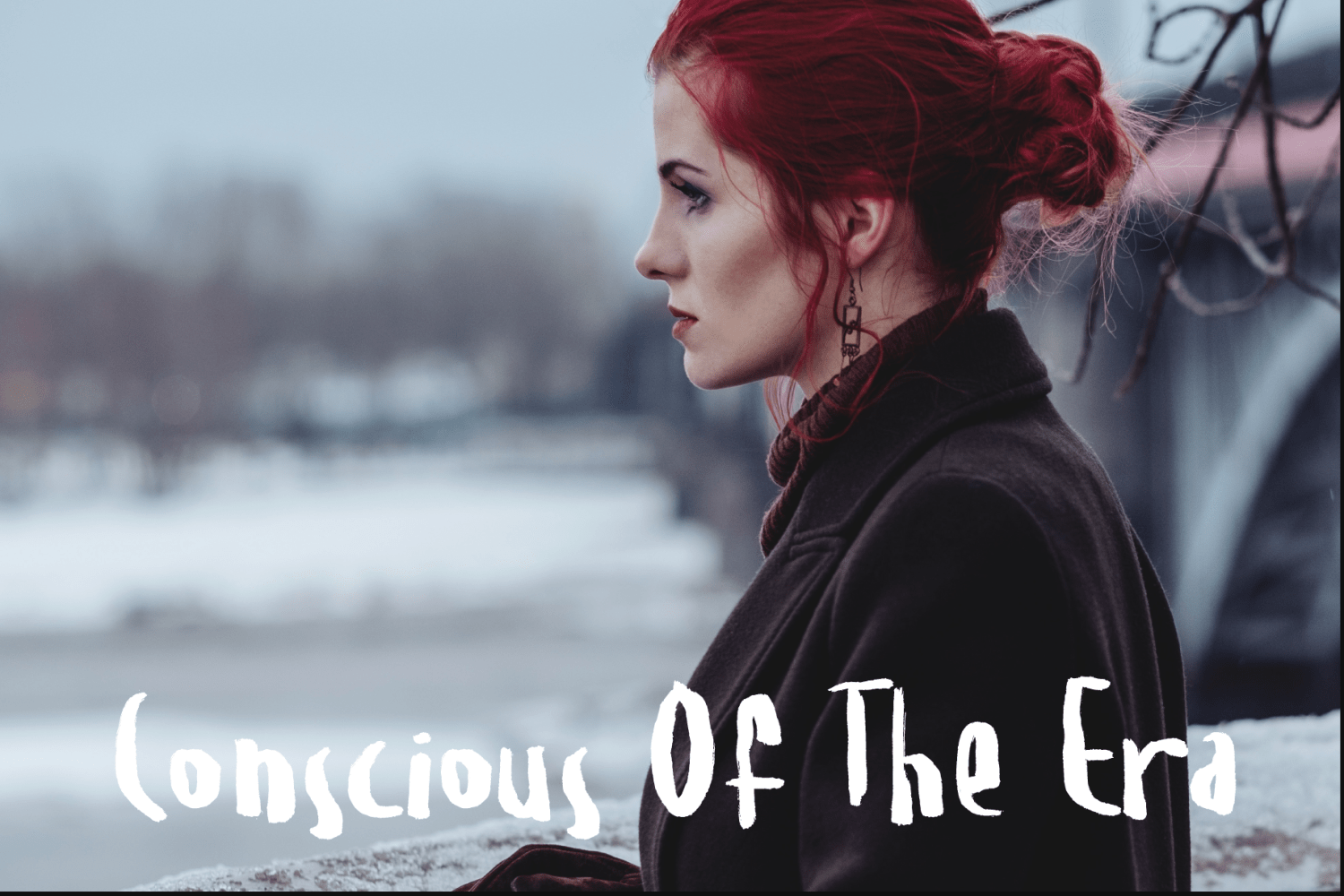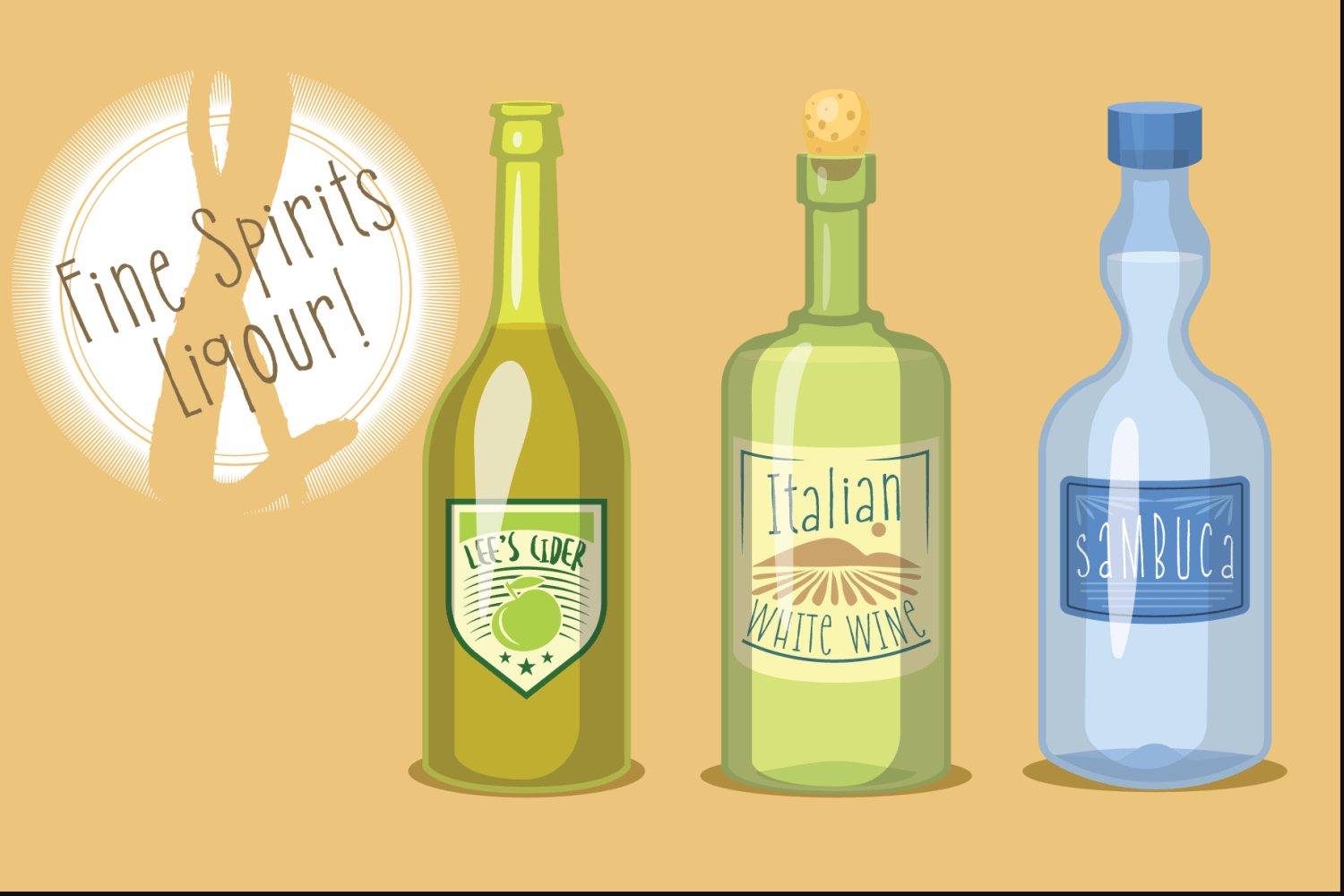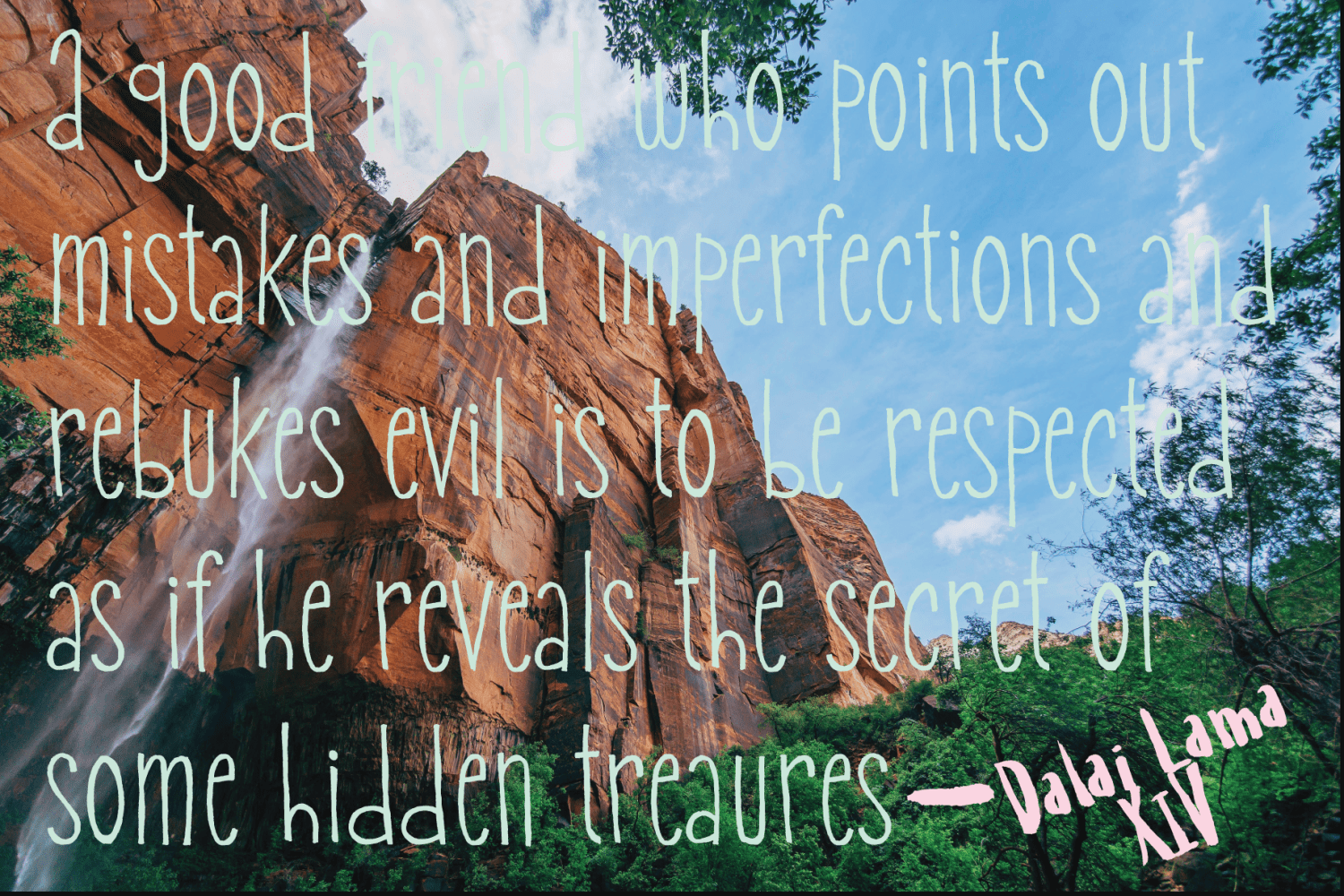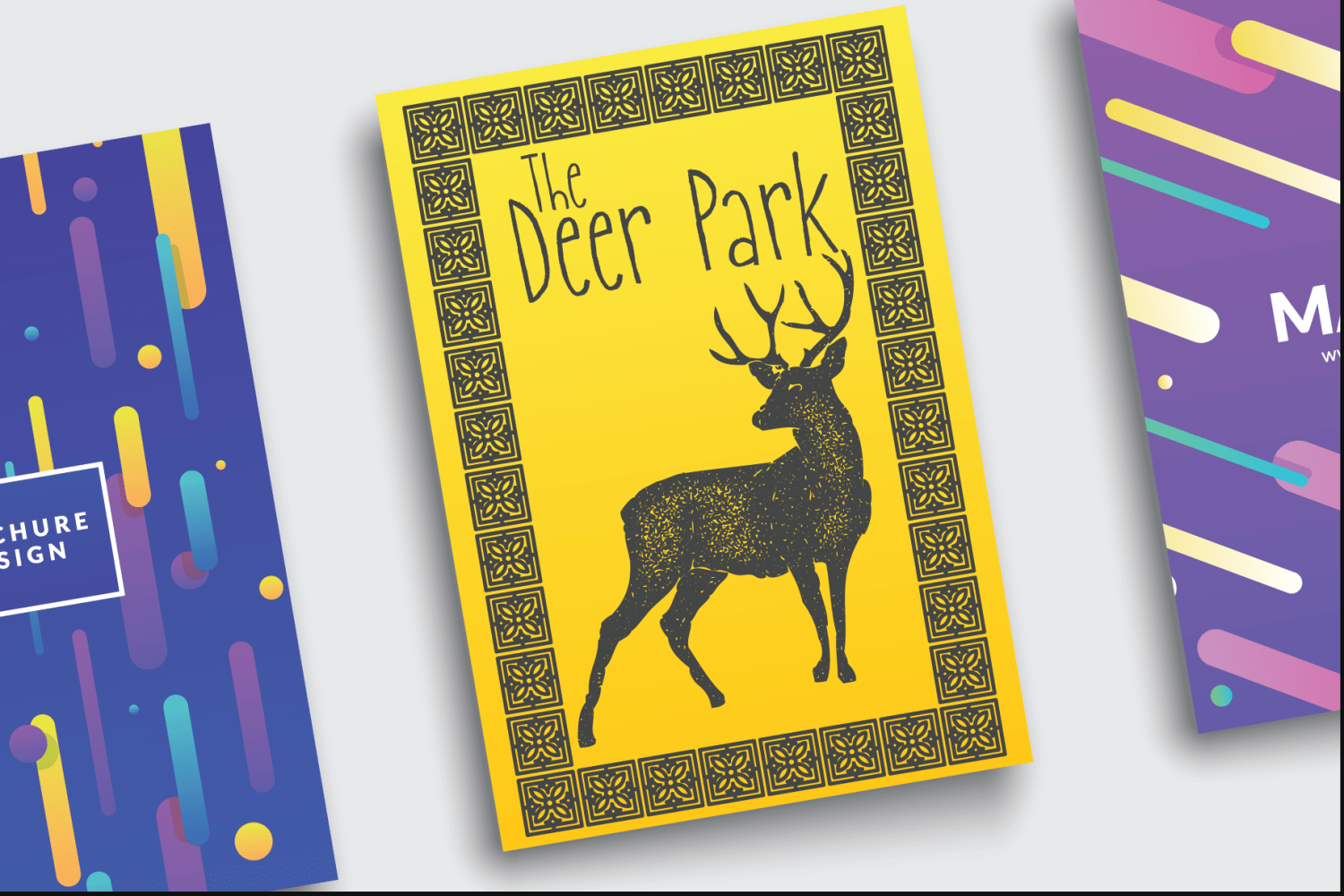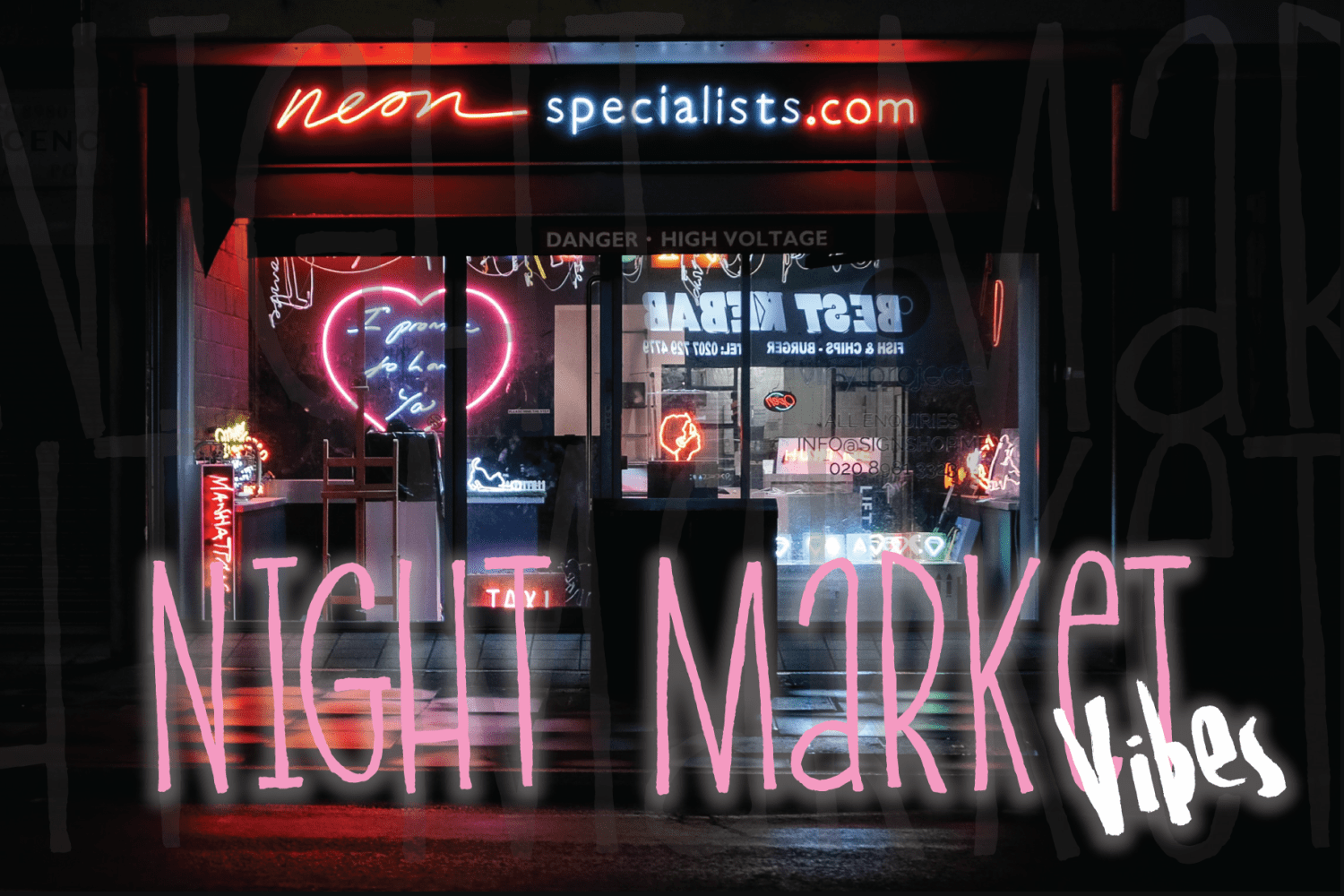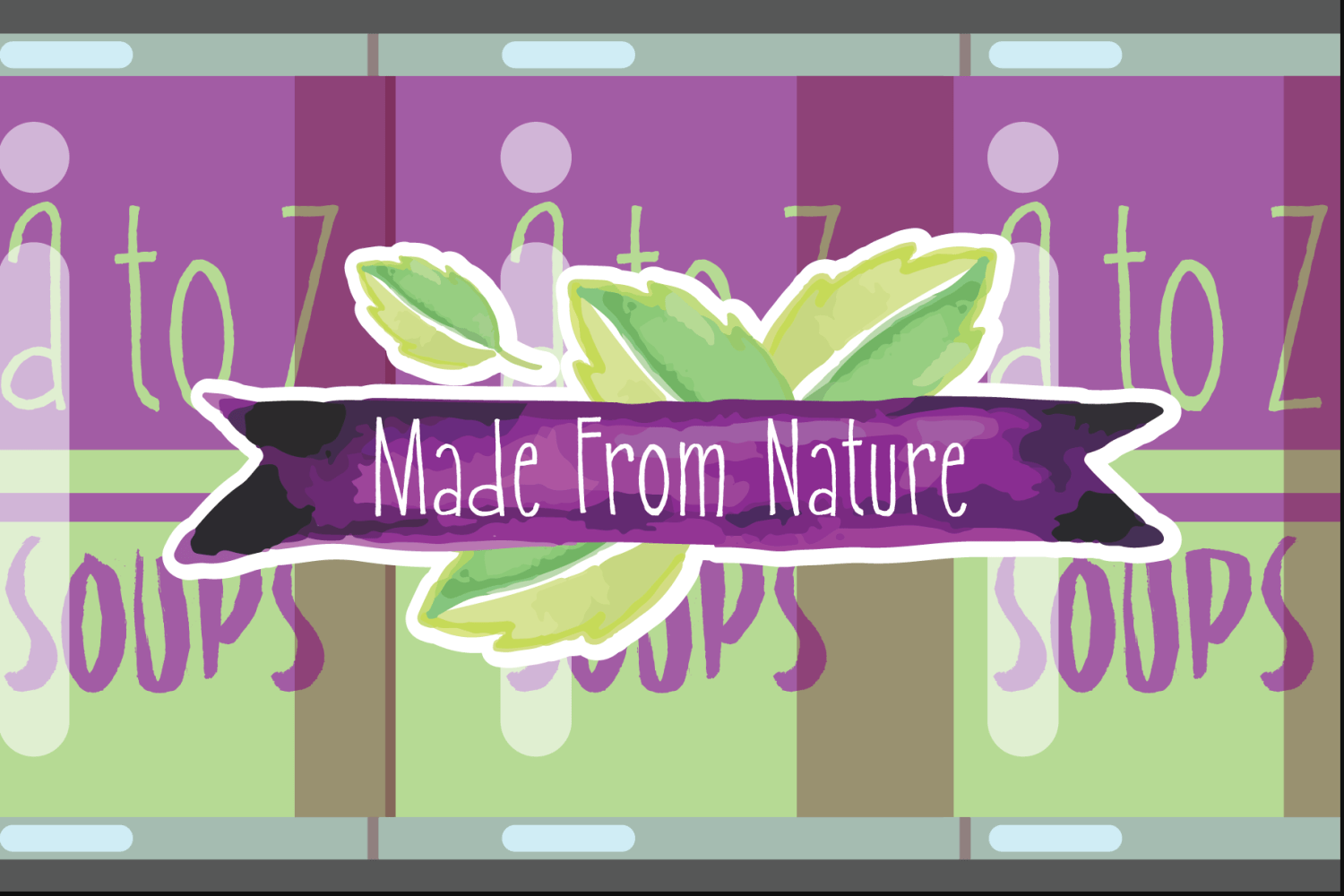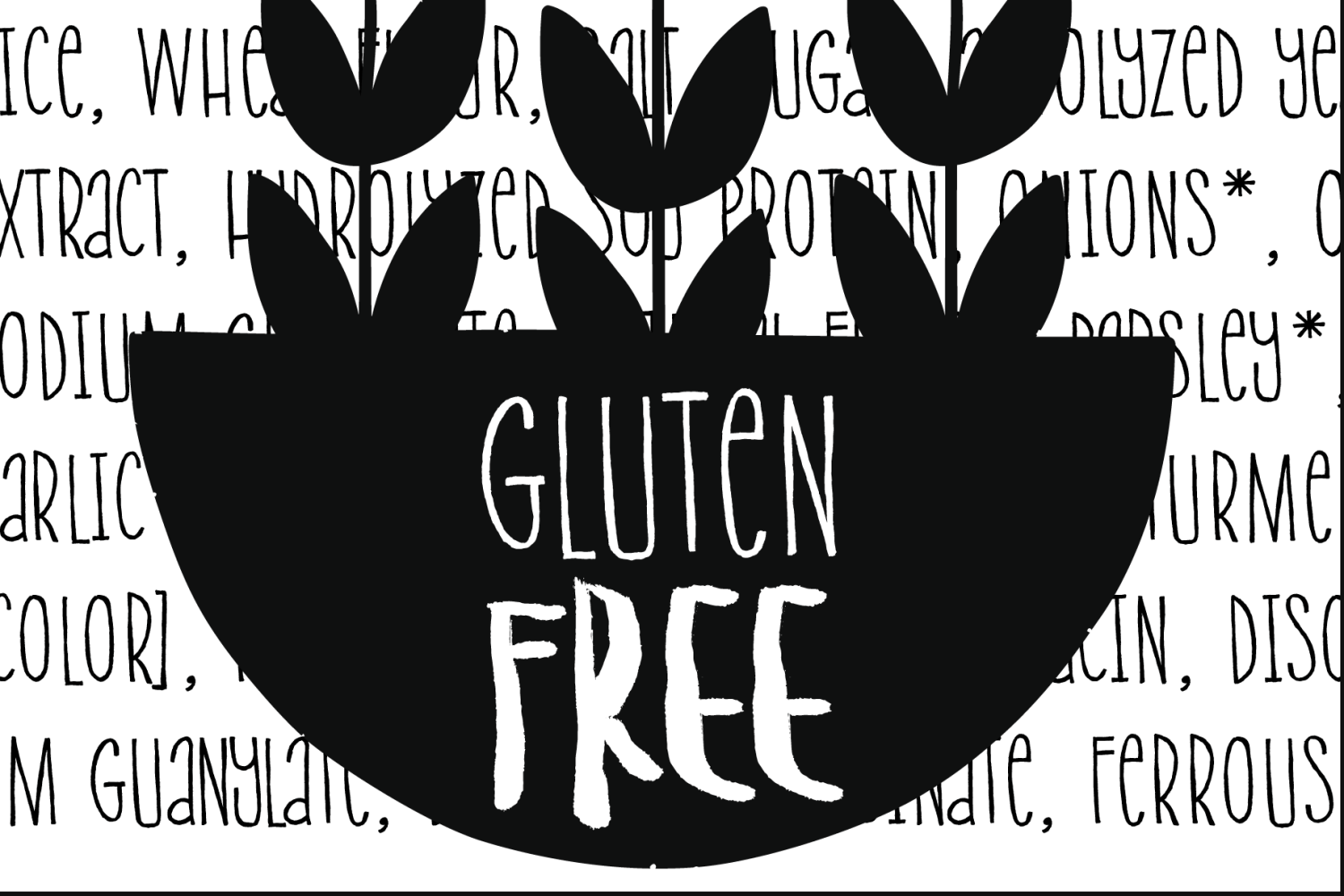
Cream Cheese & Onion Bagel
About Cream Cheese & Onion Bagel
Cream Cheese and Onion Bagels go together like apples and oranges. Taste this brand new font duo from Rocket Type! Great for branding, broadcast, and childrens books!